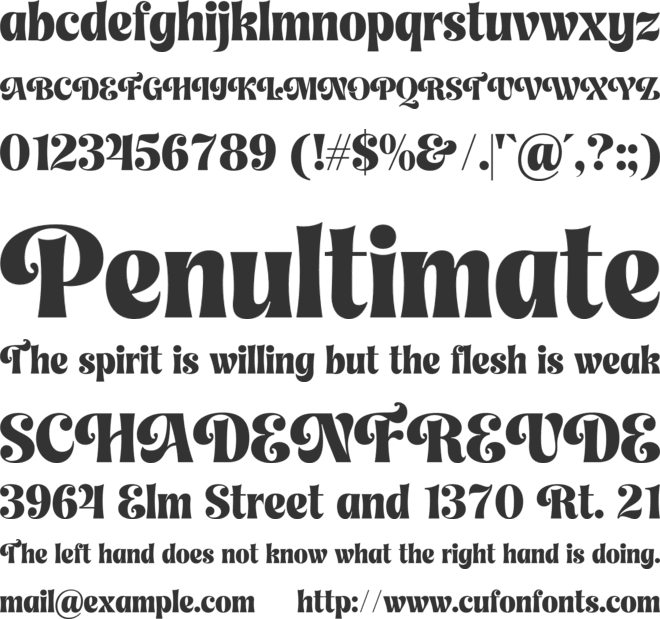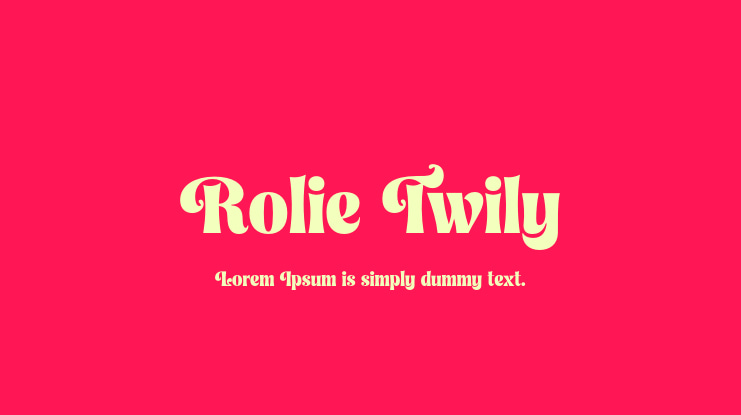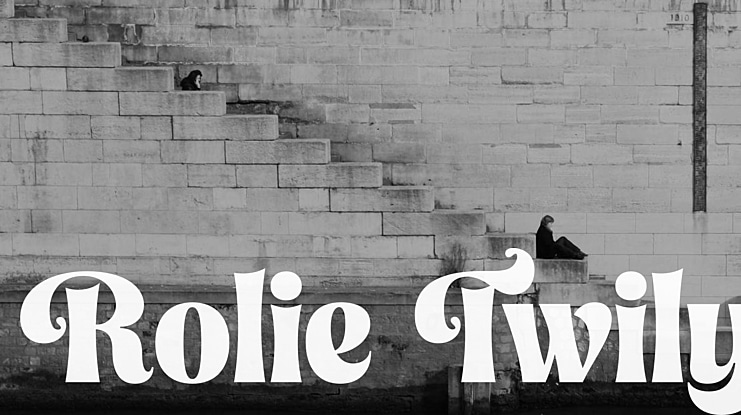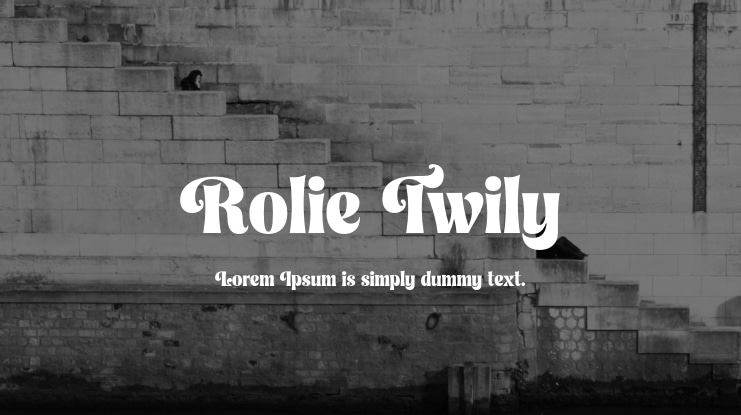
Introducing Rolie Twily, a font that effortlessly combines the elements
of display and decorative styles to bring you a unique typographic
experience. This font exudes an aura of Curly Elegant Modernity that
is sure to make your designs stand out and leave a lasting impression.